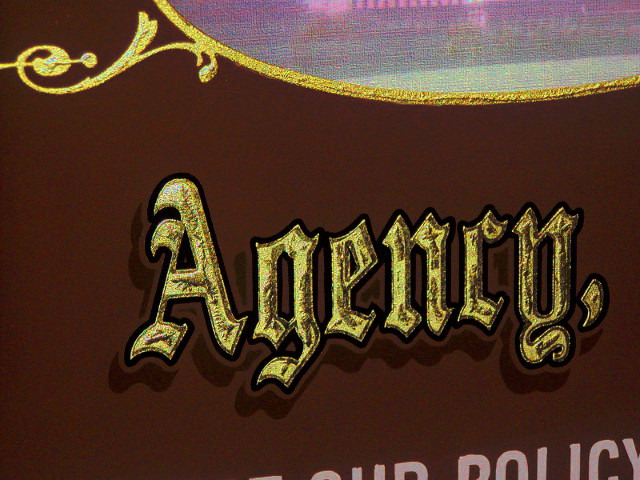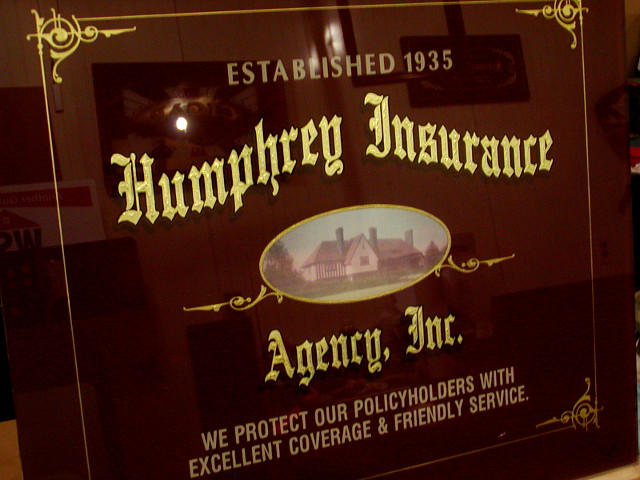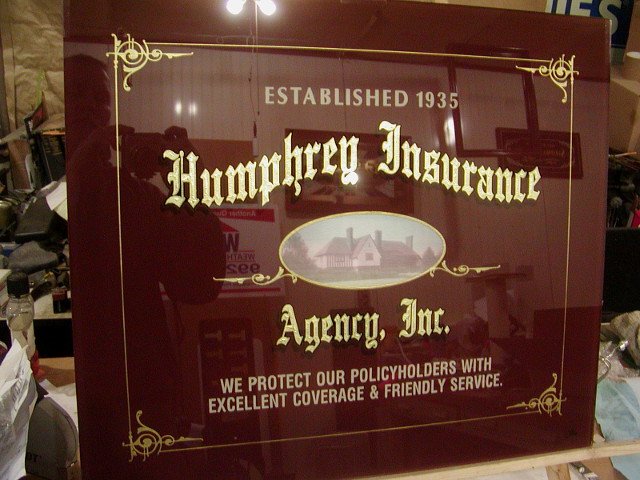
Well it's been a long cold winter so far... and must of had a bit of brain freeze to just jump in with both feet and chip this as a first try at it.
Like I said it's been cold about everywhere this year and my cabinet is in truck building so no real heat to speak of, but we had a day when the temp came up to near 30 so it felt tropical outside. I grabbed to panel and headed towards the blaster. Frosted the copy and deep etched the center boarder.... open the valve on the tank to bleed and drain any water and headed to my little shop. Washed the panel off and let dry then cut in asphaltum around the frost. Next day I mixed up 1 oz of glue to 2 oz of distilled water and place in small glue pot covered, while it soaked I leveled up the glass bed and then bridged the glass over my little oil filed electric radiator style heater on med low to warm the glass up. After heating the glue I moved the glass back to the level bed then I took a small plastic syringe loaded it with warm glue and filled in the centers.. being careful I was able to control the flow and get a nice dome of glue up to the asphaltum lines. I had a bit of glue in the pot and ran a single bead of glue in the deep etched boarder frame keeping it from touching the wall after I did it I thought that was a bad idea but let it ride. Unplugged the pot and turned the heat up to med high and went in for the night... next day I thought it be at the clear hard state when I came in but it was all nicely curled up and chipped... even the bead had popped up with a nice light chip effect. Now the temp was around 65* in the shop when I came in with outside temp in the low 20's. What can I say.... beginners luck.
So after cleaning off asphaltum I triple gilt the main copy backed up and out lined... next I painted the pin lines, scrolling and boarder frame with fast size when it tacked I used gold dust and skewing saved up last year and dusted the lines and boarder. Painted drop shade with dark brown and secondary copy with ivory... backing the whole thing but the window with med brown. Then the whole piece was given two coats of shellac and backed up with a gray acrylic enamel except the clear widow for the pictorial. The picture is a hand colored photo keeping with the 30's theme. Will have to get some better photos when the batteries charge back up... cool in the shop with a whopping 1* outside hard to keep it warm.
So here's the outcome...
The close up was done with a flash so a bit harsh but does show the chipping.
If you look close you can see the chipped bead in the boarder.
Will try and get some better photos... getting good ones is harder then painting on glass!
Also the small amount of glue left over in the pot dried amber hard... can I break it up and rehydrate with new glue added?
There is a very thin brightline the flash washed it out and made things look brassy... still struggling to get good photo's. These where some quick offhand shots I took to send to Dave as I had mentioned I was working on it and he ask me to send some over when it dried. The camera died after these had been taken and charger is slowly resuscitating the batteries. Will set up and hopefully take some better pix's.
I'm itching to try another clipped piece so hoping the temp comes up soon it's bitter cold to where your hands sticks to metal.
As for the media it's a garnet, mess it about 100-120 I believe. It looks better in person... like I said I'll try and get up some better photos. What type media do you use?
Oh the puck of dried glue any advice on that?